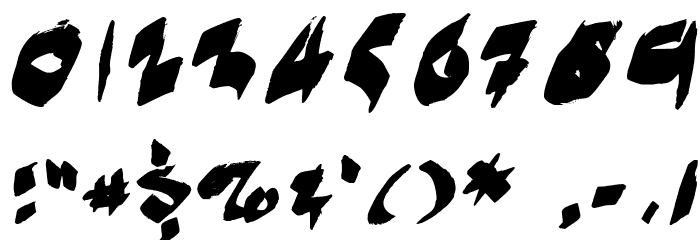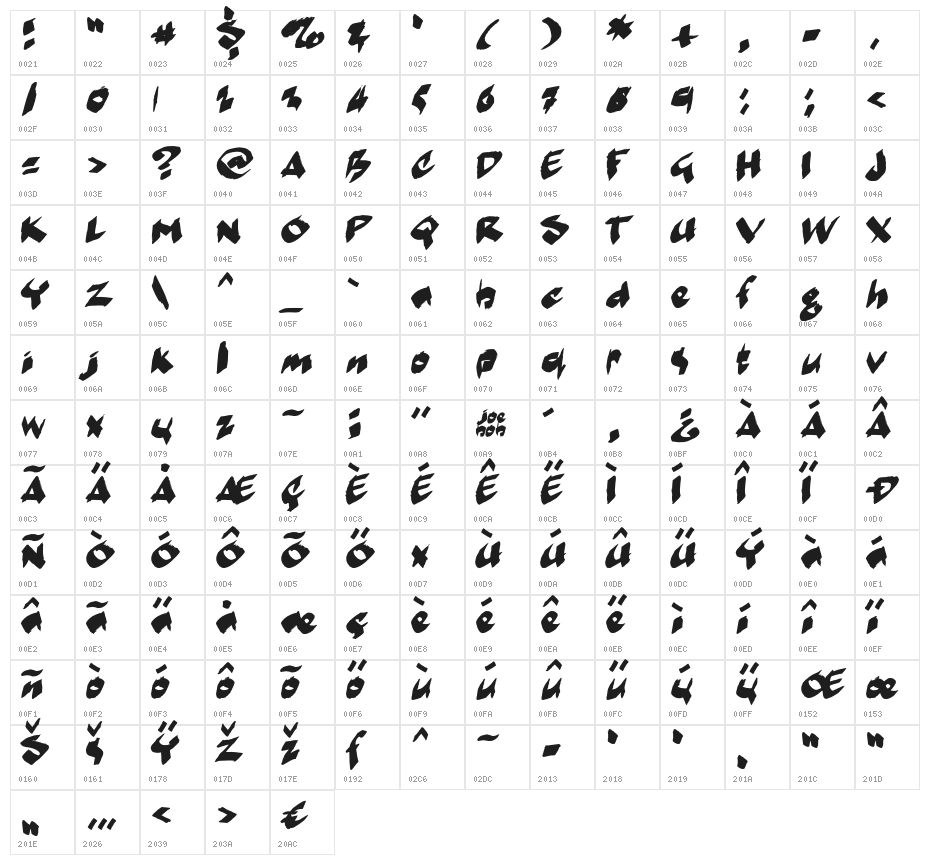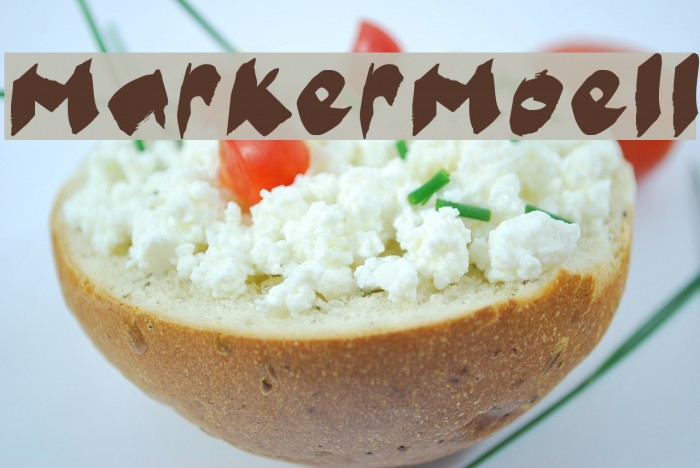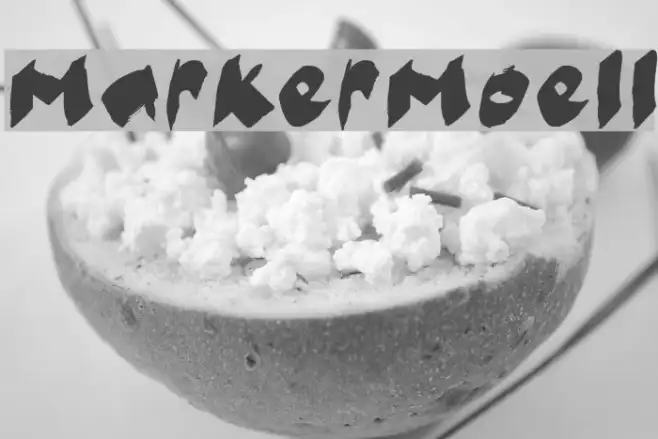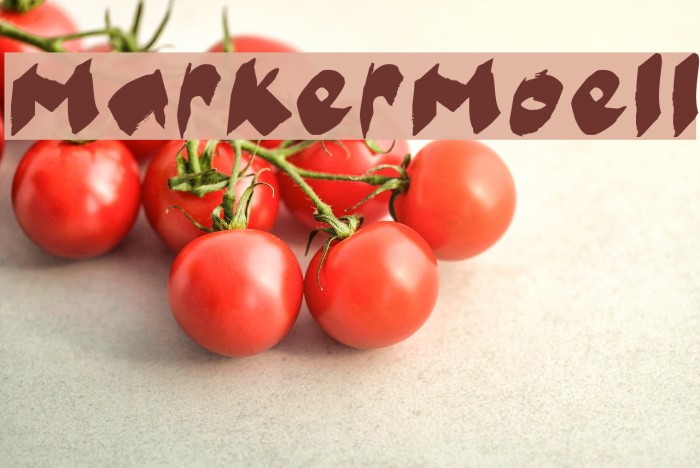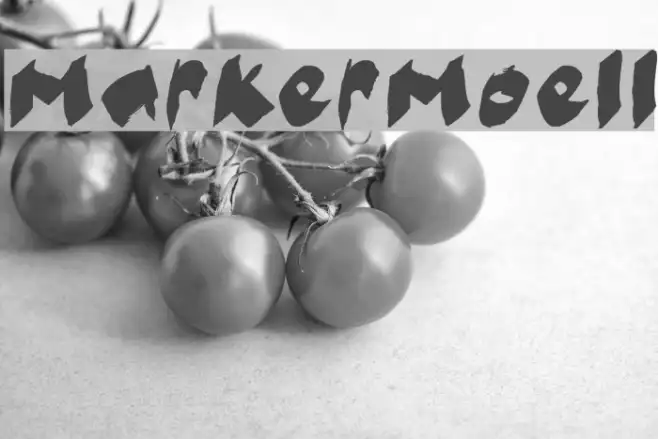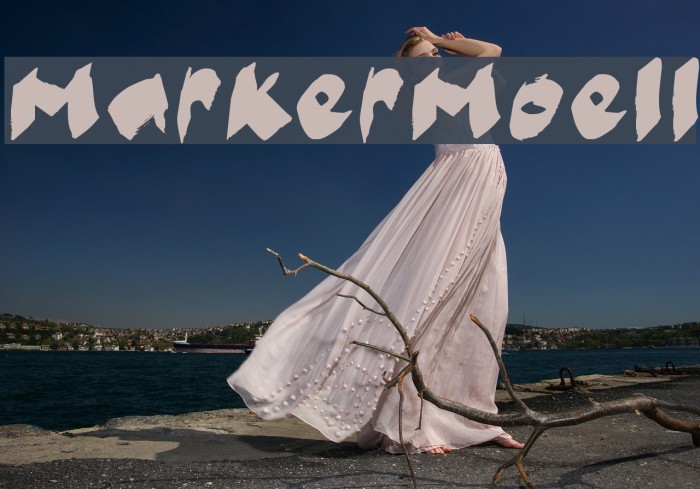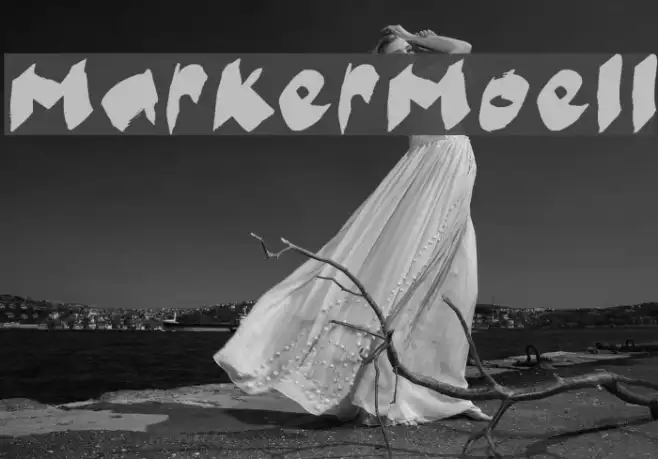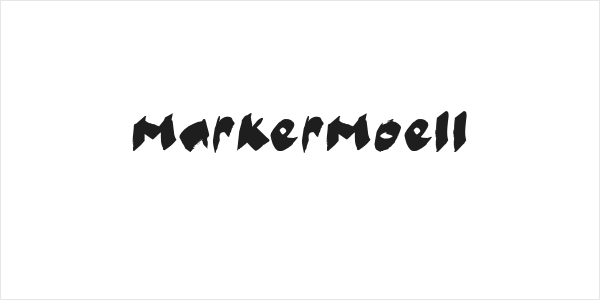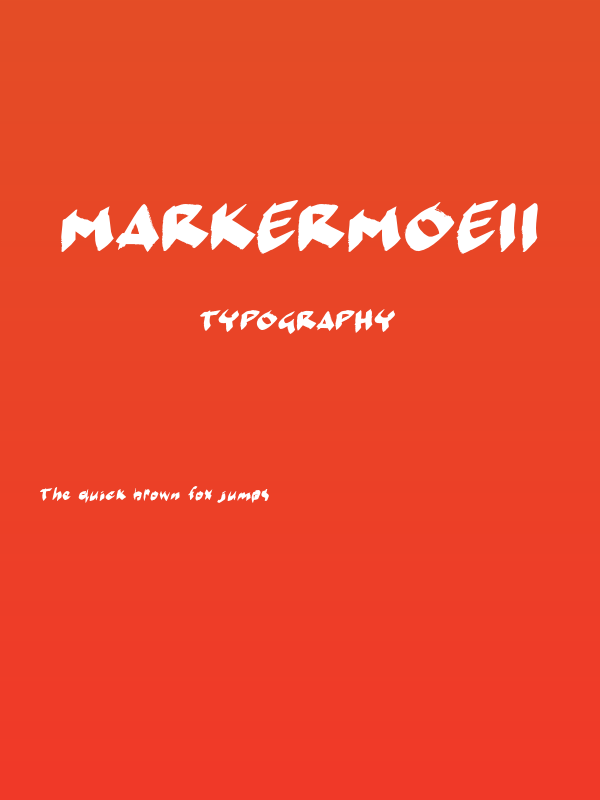
MarkerMoeII Font
MarkerMoeII Description
This font exhibits a bold, brush-stroke style that captures a sense of dynamic energy and movement. The characters are crafted with a rough, textured appearance, reminiscent of hand-painted calligraphy. Each letter features sharp angles and irregular edges, contributing to its expressive and artistic flair. The uppercase and lowercase letters maintain a consistent style, while the numbers and special characters follow suit, ensuring a cohesive look throughout. The font's unique design makes it stand out, ideal for projects that require a strong visual impact.
| Proposed Projects | Ideal for posters, album covers, branding, and any project requiring a bold artistic touch. |